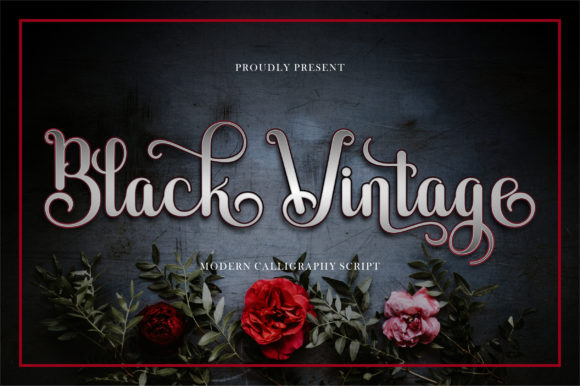
The Quest for the Perfect Font: How Black Vintage Stole My Heart
I’ll never forget the time I was working on a wedding invitation project, and my client asked for a font that was both modern and vintage. I scoured the internet, tried out countless fonts, but nothing seemed quite right. That was until I stumbled upon Black Vintage. This playful and modern script font instantly caught my eye, and I knew I had found the one. In this article, I’ll share my love for Black Vintage, its features, and how to make the most of it in your designs.
First Impressions: What I Love About Black Vintage
So, what makes Black Vintage so special? Here are a few things that I absolutely love:
- ✨ Playful yet elegant: Black Vintage strikes the perfect balance between playfulness and sophistication, making it perfect for a wide range of design projects.
- ✅ PUA encoded: The font is PUA encoded, which means you can easily access all the glyphs and swashes, giving you endless creative possibilities.
- 💕 Versatile: Whether you’re designing wedding invitations, thank you cards, quotes, greeting cards, logos, or business cards, Black Vintage looks stunning.
The Not-So-Perfect: A Few Quirks
While Black Vintage is an amazing font, there are a few things to keep in mind:
- ⚠️ Legibility at small sizes: Like many script fonts, Black Vintage can be a bit tricky to read at small sizes. Make sure to test it out at different sizes to ensure it’s legible for your project.
- 🤔 Overuse of swashes: With so many beautiful swashes to choose from, it’s easy to get carried away. Be mindful of overusing them, as it can make your design look cluttered.
The Story Behind Black Vintage
Black Vintage was designed with the intention of creating a modern script font that still had a touch of vintage charm. The designer wanted to create a font that was both elegant and playful, perfect for a wide range of design projects. With its PUA encoding and extensive glyph library, Black Vintage has become a favorite among designers and crafters.
| Is Black Vintage suitable for body text? | While Black Vintage is a beautiful font, it’s best suited for display text or headings. It can be a bit tricky to read at small sizes, so it’s not ideal for body text. |